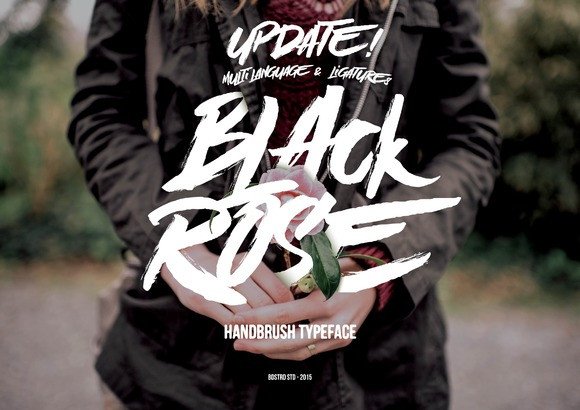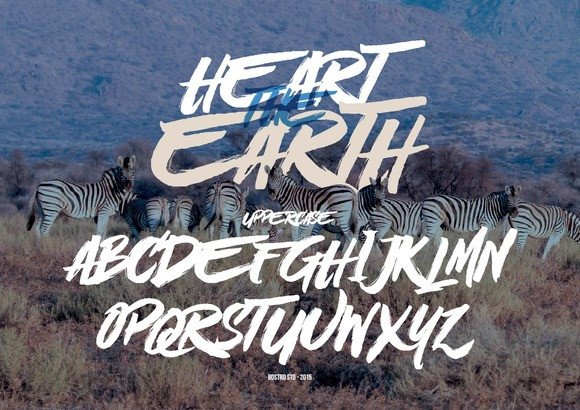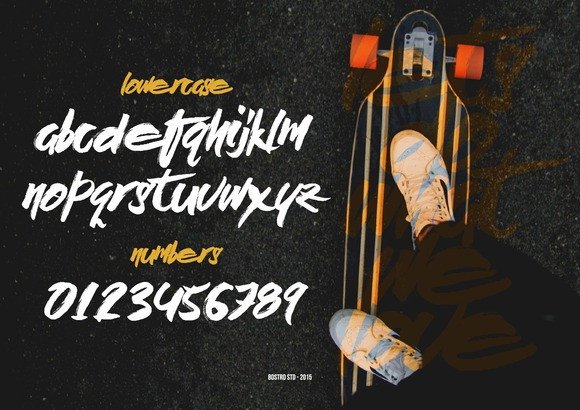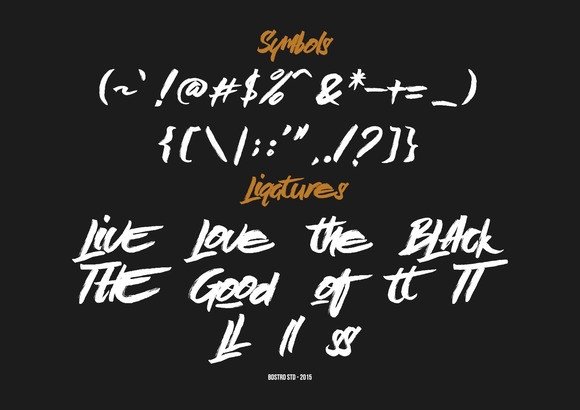
Black Rose  Font
About the Black Rose  Font
Add a touch of class to your work with the Black Rose  Font, a truly exceptional typeface. Black Rose is a beautiful brush stroke font, ideal for a wide range of designs. This font looks great in alternative design styles, and has a true hipster feel.
Black Rose’s expressive brush strokes shine in headlines, short text blocks on posters or invitations, and logo designs where a handcrafted, slightly rebellious feel is desired. It works exceptionally well for branding projects targeting a younger, creative demographic or those emphasizing individuality and artistic expression. Avoid using it for body copy or lengthy text; its highly stylized nature makes extended reading difficult.
For optimal visual balance, pair Black Rose with a clean sans-serif like Montserrat for a modern contrast, or a classic serif such as Garamond for a touch of refined elegance. A geometric sans-serif like Futura can also create a striking juxtaposition, highlighting Black Rose’s organic quality.
The font possesses a bold, expressive, and slightly edgy personality. Its inherent energy makes it a powerful choice for brands seeking to convey creativity, authenticity, and a touch of rebellion.
Black Rose  Font Usage Examples
Black Rose  Font Example